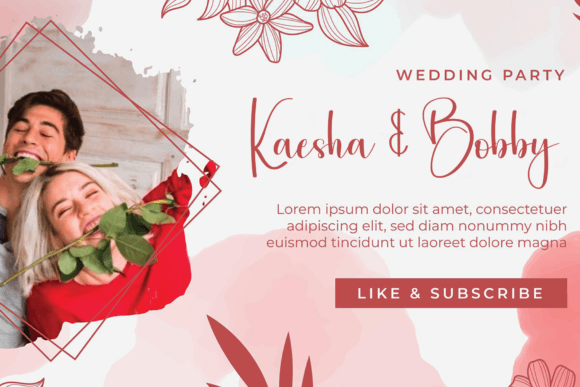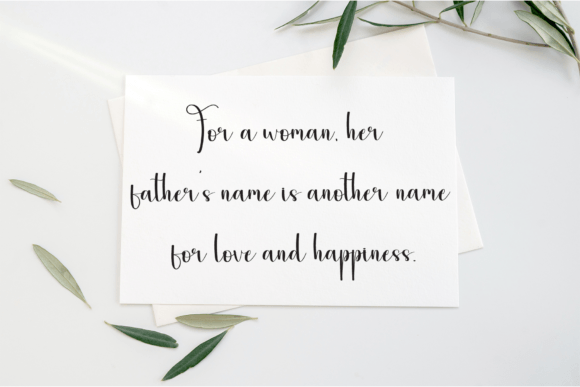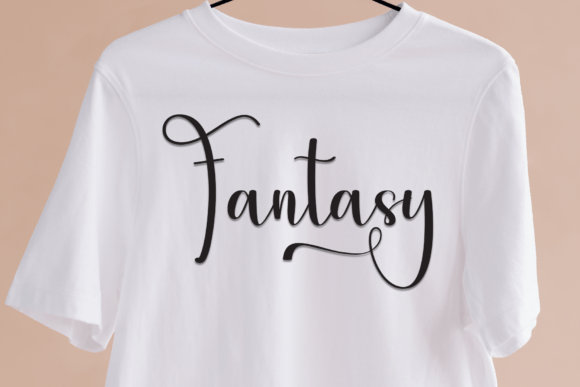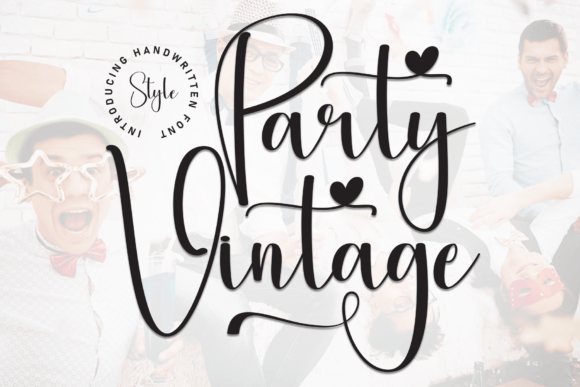
Introduction to Party Vintage Font
Introducing a charming and amiable handwritten display font that exudes sweetness and friendliness.
Infused with a dash of whimsy and fun, this font is a perfect match for your wedding invites, greeting cards or any design project yearning for a sprinkle of joy Vibrant and heartwarming, it breathes life into your words, adding an enchanting touch that leaves a lasting impression.
Key Features of Party Vintage Font
Why Choose Party Vintage Font?
Party Vintage Font offers exceptional quality and versatility, making it a valuable addition to your design toolkit. Whether you’re creating for personal projects or commercial use, Party Vintage Font delivers professional results.